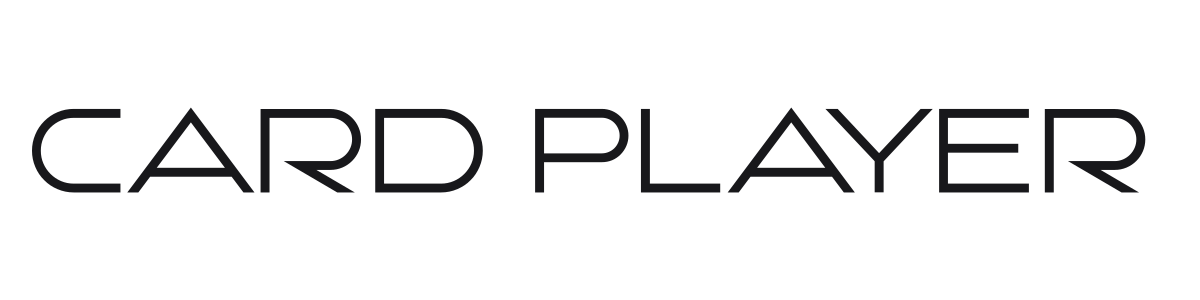
Card Player
Card Player is a wide geometric sans-serif with a light, airy stroke and subtle rounded details at key terminals. The generous tracking and clean construction give it a contemporary luxury sensibility without tipping into generic minimalism. It works well for logotypes, headlines, and brand identities that want a modern, refined edge.